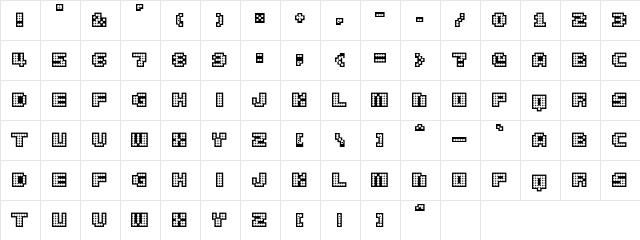
delia Black
Design Context for delia Typeface
delia is a composed and adaptable typeface that performs quietly and consistently across a wide range of design contexts.